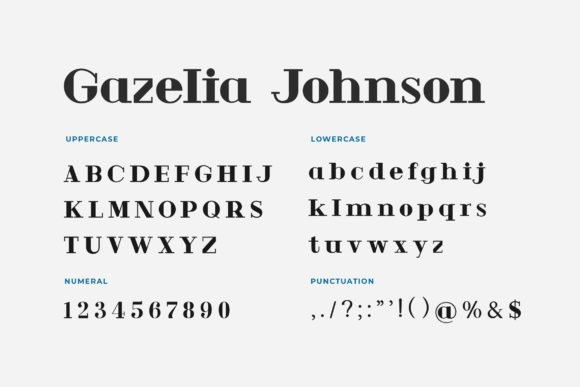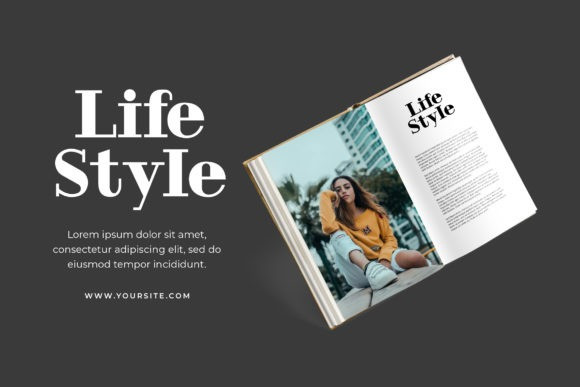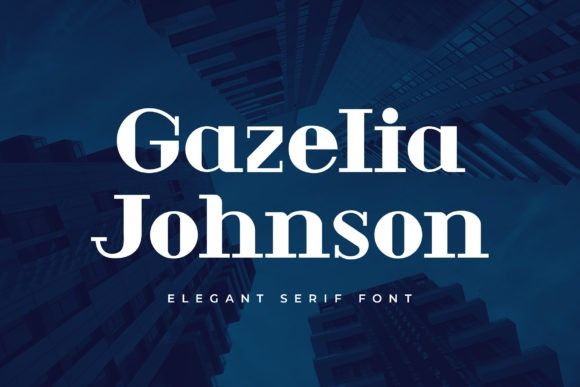
Gazelia Johnson Font
Gazelia Johnson Font is an elegant and assertive serif font. Masterfully designed to become a true favorite, this font has the potential to bring each of your creative ideas to the highest level!